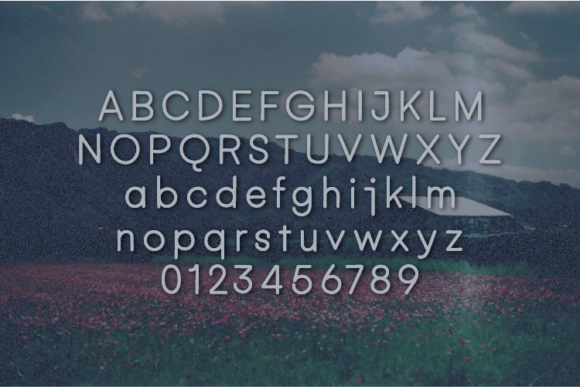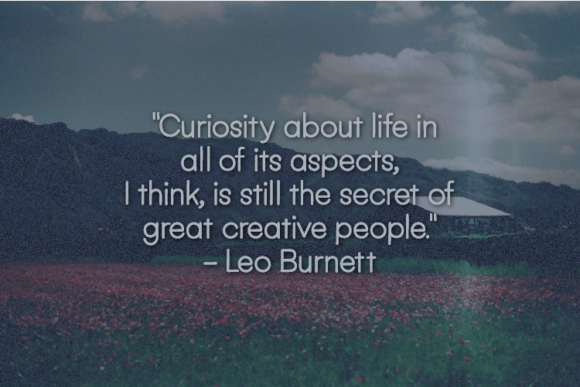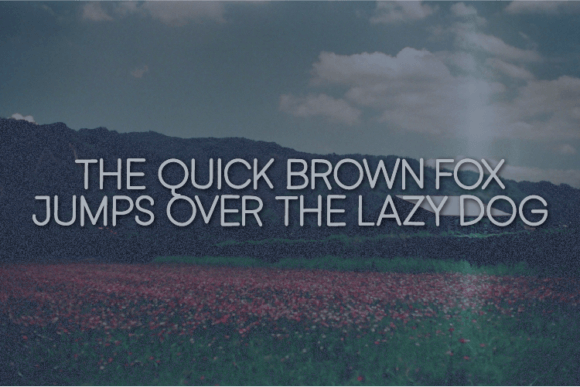
Discover the Elegance of Affordable Font: A Game-Changer for Designers and Crafters
Are you tired of using generic fonts that fail to make your designs stand out? Look no further than Affordable Font, a casual and neat sans serif font that’s taking the design world by storm. With its natural and elegant style, Affordable Font is the perfect choice for designers and crafters looking to elevate their craft with minimal effort.
The Characteristics of Affordable Font
Affordable Font boasts a unique blend of simplicity and sophistication, making it an ideal choice for a wide range of design projects. Its sans serif design ensures that your text remains clean and easy to read, while its elegant style adds a touch of refinement to your work. Whether you’re designing a logo, brochure, or website, Affordable Font is sure to impress.
What Sets Affordable Font Apart
So, what makes Affordable Font stand out from the competition? Here are just a few reasons why designers and crafters are falling in love with this versatile font:
- Natural and Elegant Style: Affordable Font’s unique design combines the simplicity of sans serif fonts with the elegance of high-end typography.
- Highly Versatile: Whether you’re designing a business card or a billboard, Affordable Font adapts seamlessly to any project.
- Easy to Read: The font’s clean design ensures that your text remains easy to read, even at small sizes.
- Unique and Memorable: Affordable Font’s distinctive style helps your designs stand out from the competition and leave a lasting impression.
How to Use Affordable Font in Your Designs
Using Affordable Font in your designs is incredibly easy. Here are a few tips to get you started:
- Pair it with Other Fonts: Affordable Font works beautifully with other sans serif fonts, as well as elegant script fonts.
- Experiment with Sizes: Affordable Font remains legible even at small sizes, making it perfect for body text or captions.
- Add a Pop of Personality: Use Affordable Font to add a touch of elegance to your designs, or to create a bold and eye-catching headline.
The Benefits of Using Affordable Font
By incorporating Affordable Font into your designs, you can enjoy a range of benefits, including:
- Increased Brand Recognition: A unique and memorable font helps to establish your brand identity and differentiate you from competitors.
- Improved Readability: Affordable Font’s clean design ensures that your text remains easy to read, even for users with visual impairments.
- Enhanced Visual Appeal: The font’s elegant style adds a touch of sophistication to your designs, making them more visually appealing.
Tips for Getting the Most Out of Affordable Font
To get the most out of Affordable Font, be sure to:
- Experiment with Different Sizes and Styles: Affordable Font works beautifully in a range of sizes and styles, from bold headlines to body text.
- Pair it with Other Design Elements: Combine Affordable Font with other design elements, such as images and graphics, to create visually appealing designs.
- Use it Consistently: Use Affordable Font consistently across all of your designs to establish a strong brand identity.